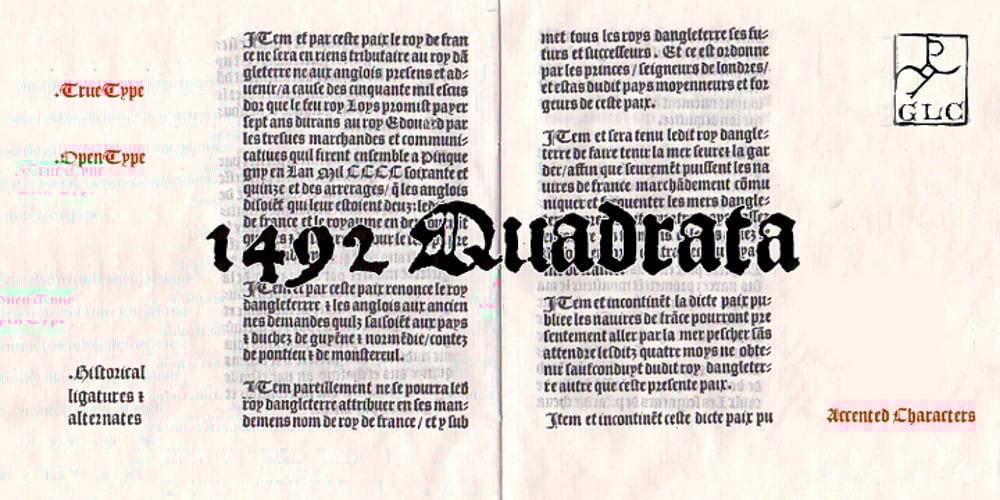
1492 Quadrata Font Family was designed by published by GLC. 1492 Quadrata contains 1 styles and family package options. Font designed from that used in France in 1492 to print the peace treaty between French and Enqlish Kings in Etaples, French town in Normandy. This font include “long s”, naturally, as typically medieval, and only a few special characters as there were not very often used in the text, no more than abbreviations. Added, a lot of accented characters no longer existing on this time. A render sheet, joined with the font file, makes it easy to identify on a keyboard. This font is used as variously as web-site titles, posters and fliers design, editing ancient texts, greetings… This font supports as easily enlargement as small size, remaining a readable and beautiful regular gothic.